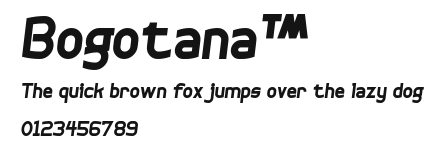
• Font Name: Bogotana™
• Font Style: Italique
• Font ID: Bogotana™ Gruesa Inclinada:Versión 1.00
• Full Font Name: Bogotana™ Gruesa Inclinada
• Version: Versión 1.00 Abril 21, 2012, primera edición
• PostScript Name: Bogotana-Gruesa-Inclinada
About Bogotana™.ttf
Bogotana™.ttf is a modern, elegant sans-serif font designed for ultimate readability and visual harmony. Perfect for branding, headlines, web design, and print materials.